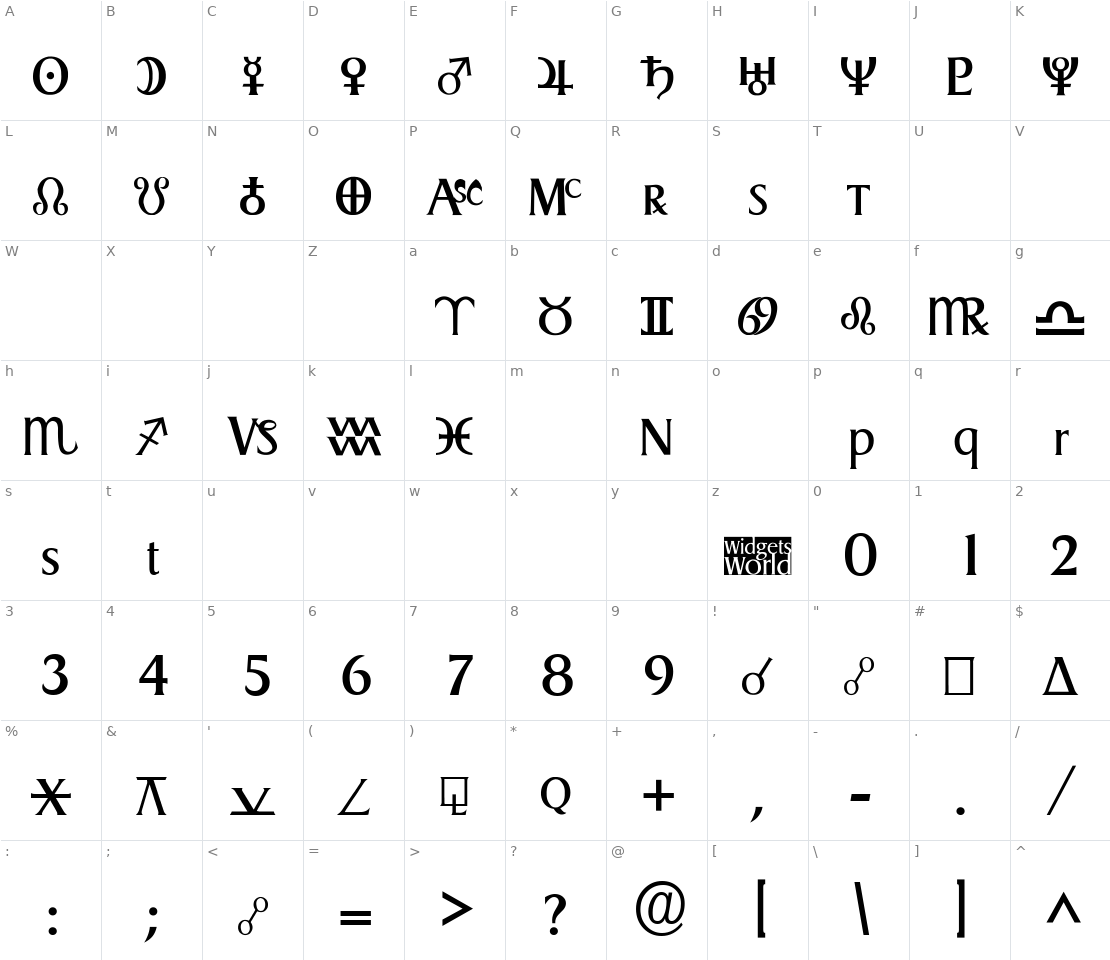
Astro Gadget
by Jason Davies
Astro Gadget is a decorative symbol font by Jason Davies containing astrological and planetary glyphs rather than traditional letterforms. The set covers zodiac signs and esoteric symbols with clean, readable outlines that work at a range of sizes. Useful for astrology apps, mystical-themed design work, charts, and anywhere you need celestial iconography without hunting down individual vector assets.